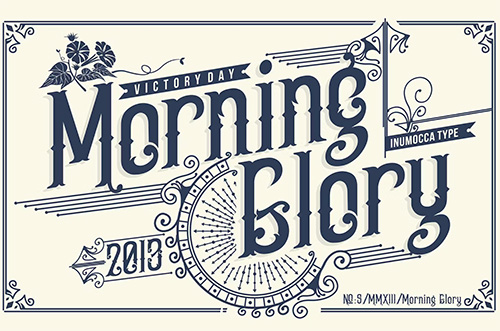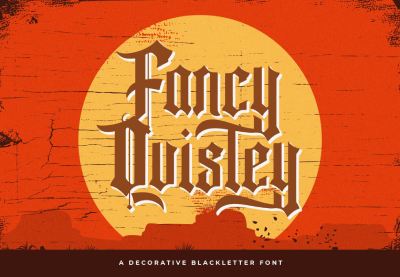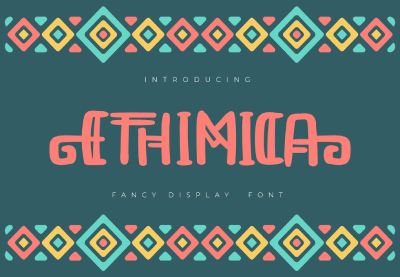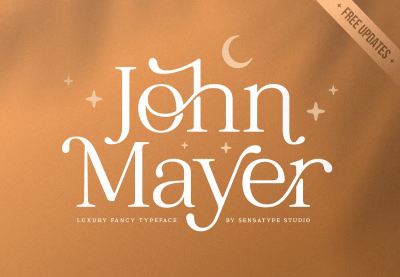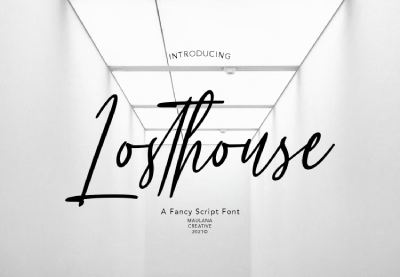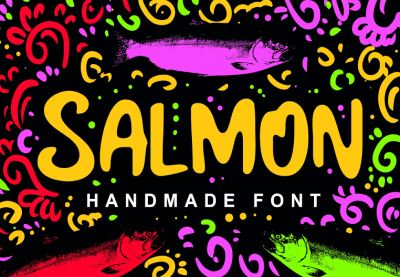
25+ Best Fancy Fonts With Decorative Alphabet Letters (2025)
Need fancy text fonts? Check out this inspiring list of premium decorative fonts!
How do you stand out from the crowd in design? Though many are drawn to the popular minimalist trends, other designers are learning the incredible benefits of bucking trends and going for top fancy fonts.
Today, we bring you a phenomenal collection of 27 of the best premium decorative font examples to upgrade your work. Transform your designs with fancy text fonts that will leave your audience in wonder.
Add beautiful characters to your projects with cool letters, swashes, and decorations. No matter your personal style preferences, these premium fancy font alphabets will freshen up your work for impressive results.
Check out this collection of the best decorative font styles and examples from Envato Elements.
25+ Best Decorative Fonts From Envato Elements
Let's take a look at some of the top fancy lettering fonts you can find at Envato Elements.
1. Funky Gloom: Fancy Blackletter (OTF, TTF, WOFF)
This fancy font alphabet is a modern update on classic blackletter typography. It's fresh and has a nice aesthetic that can work for product packaging, flyers, and a lot more. If you like fancy word fonts and lettering styles, you'll fall in love with Funky Gloom.
2. Soft Vintage Scandinavian Alphabet Fonts (OTF, TTF)
Cultures from all over the world inspire design every day. This Soft Vintage Scandinavian Alphabet Fonts is crafted after common Scandinavian patterns and themes. Enjoy your creative process even more by combining this nice font's alphabet with beautiful craft projects or vintage-inspired design. Included is one regular font as well as a bold type, and they come in various formats.
3. Karmela Fancy Fancy Letters (OTF, TTF)
Looking for fancy tattoo lettering fonts? Check out the stunning Karmela Fancy Fancy Letters. Also a great font type for magazines, logos, and more, this font is inspired by the incredible handmade brush lettering of the 50s and 60s. Pair it with your favorite vintage projects for the perfect combo!
4. Cormier Art Deco Alphabet Font Styles (OTF, TTF, WOFF)
If you're a fan of the Art Deco style, this decorative font is for you. Cormier Art Deco Alphabet Font Styles is a clean and beautiful Art Deco inspired font. The typeface comes in three fancy decorative font lettering styles: rough, double, and regular.
5. MOJITA Unique Fonts Alphabet (OTF, TTF, WOFF)
This cool fancy alphabet font is not for the faint-hearted. MOJITA Unique Fonts Alphabet is for those who know what they want and aren't afraid to stand out from the crowd. This geometric display typeface features an intricate, beautifully balanced design that you won't find anywhere else. What's more, if you're looking for decorative fancy number fonts, Mojita's got you covered. Its numbers are as eye-catching and stylish as its letters.
6. Swashington: Pretty Font Alphabet (OTF, TTF)
One of the fancy font alphabets to be found at Envato Elements, Swashington is a serif font with a vintage feel. If you need a fancy letter W or elegant letter S fonts, consider this one. Featuring a terrific collection of swash and ligature variants, Swashington is a great choice when you want to create eye-catching text with plenty of style and flair.
7. Sheiral Pretty Letters (OTF, TTF)
Elegant letter S font fans, this is for you! Looking for the best tattoo decorative fonts? You can't do better than the Sheiral Pretty Letters, with its beautiful fluid strokes that resemble handwriting with a flourish. This is a fancy script font you can't do without.
8. Vallely Fancy Art Deco Alphabet Fonts (OTF, TTF)
This Art Deco influenced font can be used as a tattoo decorative font example as well as for labels, titles, or any time you want your text to stand out. This fancy lettering style is packed with over 350 glyphs and alternate characters, giving you a ton of decorative fancy number fonts to experiment with.
9. Outistyle Alphabet: Pretty Fonts Alphabet (OTF, TTF)
Searching for letter T fonts? This fancy cursive font comes in two styles: a script and a very textured brush effect. This attractive combination makes for a lighthearted and fun font. Another great feature of Outistyle Alphabet: Pretty Fonts Alphabet is that it comes with swashes and accents that you can mix and match to make your own unique designs. Use it on T-shirts, posters, product packaging, and more.
10. Hagen Fancy Different Letter Fonts (OTF, TTF, WOFF)
Inspired by avant garde fashion, Hagen Fancy Different Letter Fonts comes in two weights: heavy and regular. With its distinct flourishes and touches, simple fancy fonts like this serif font are a big favorite for posters, T-shirts, and signs of various sorts.